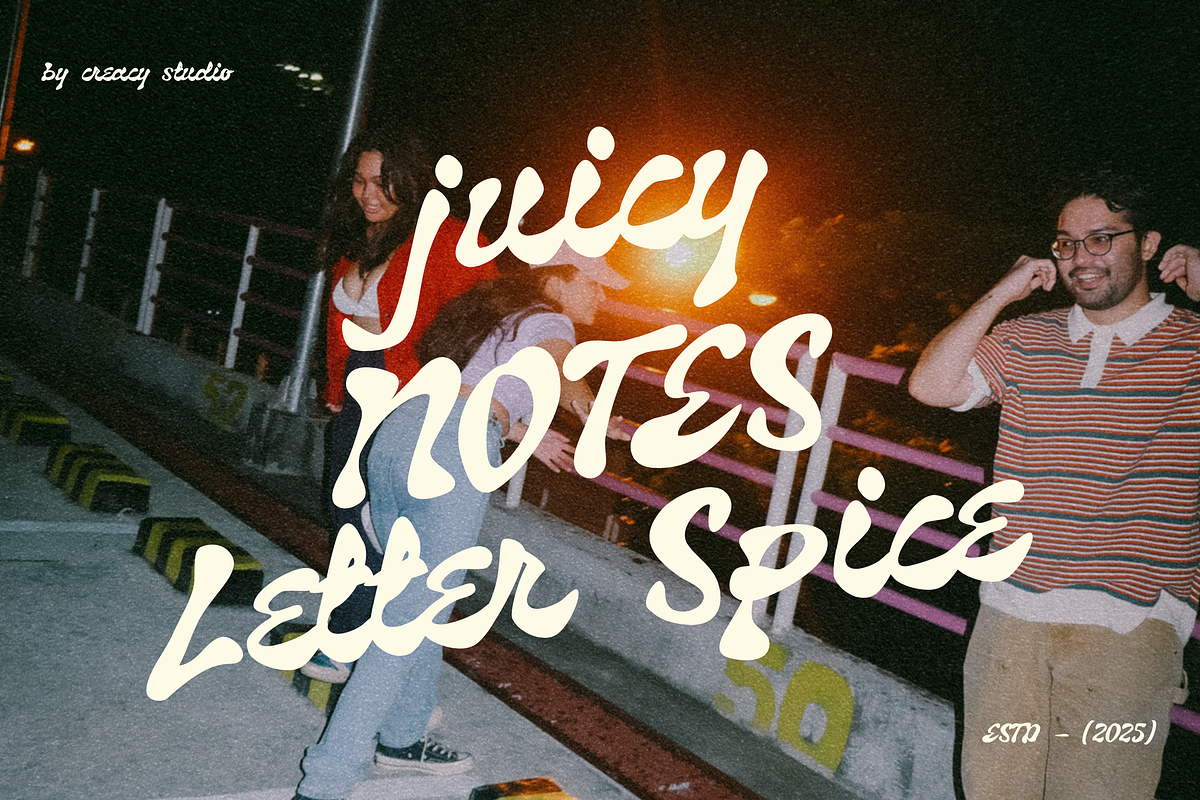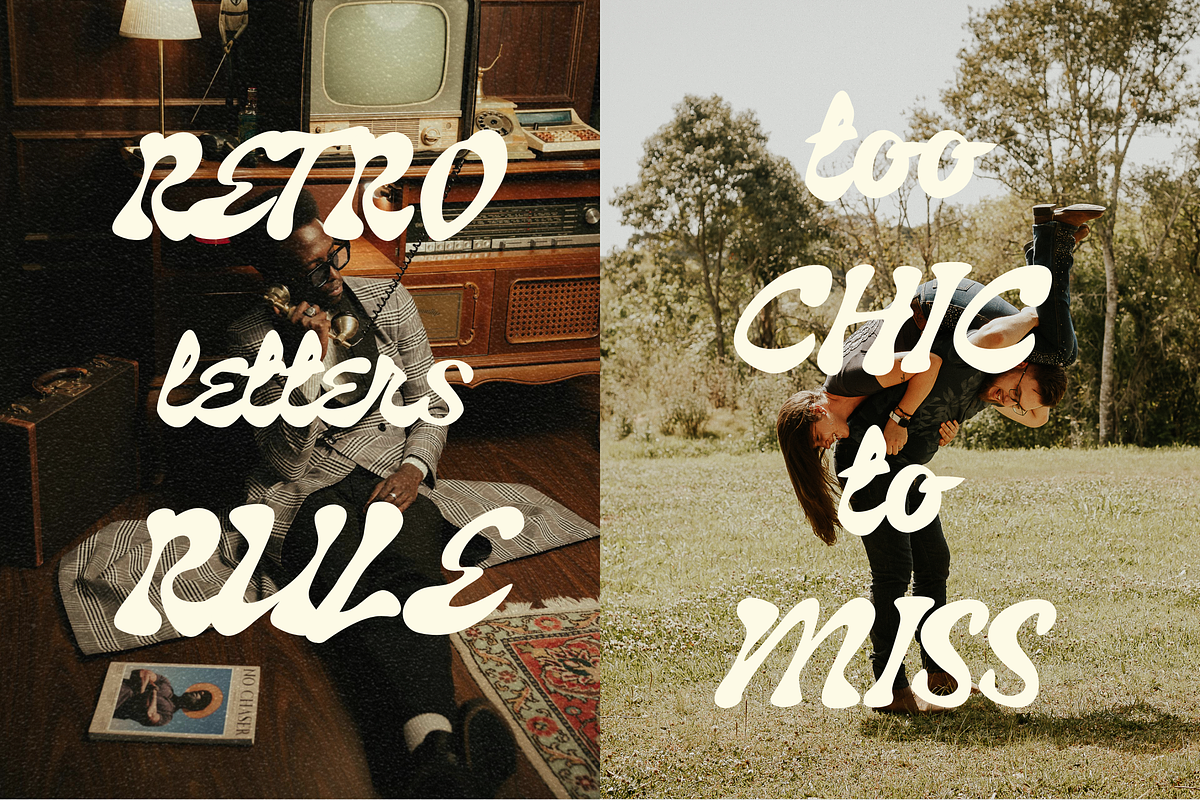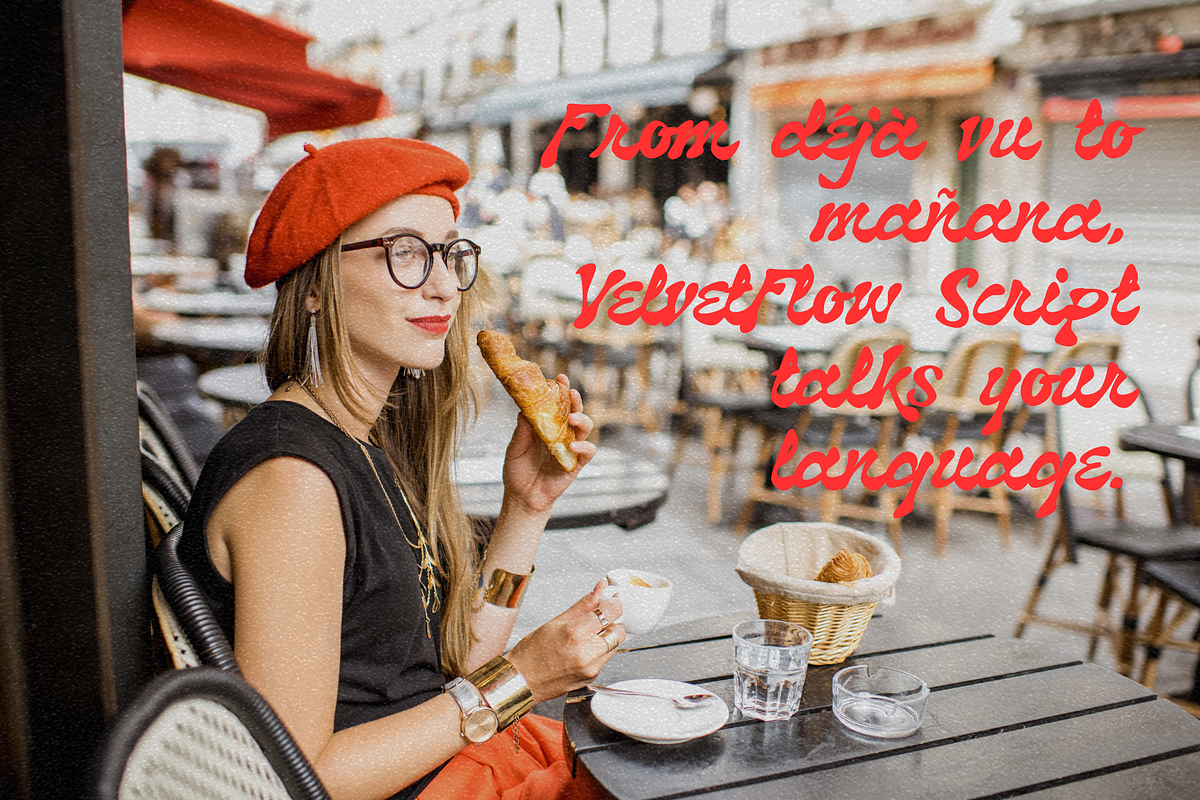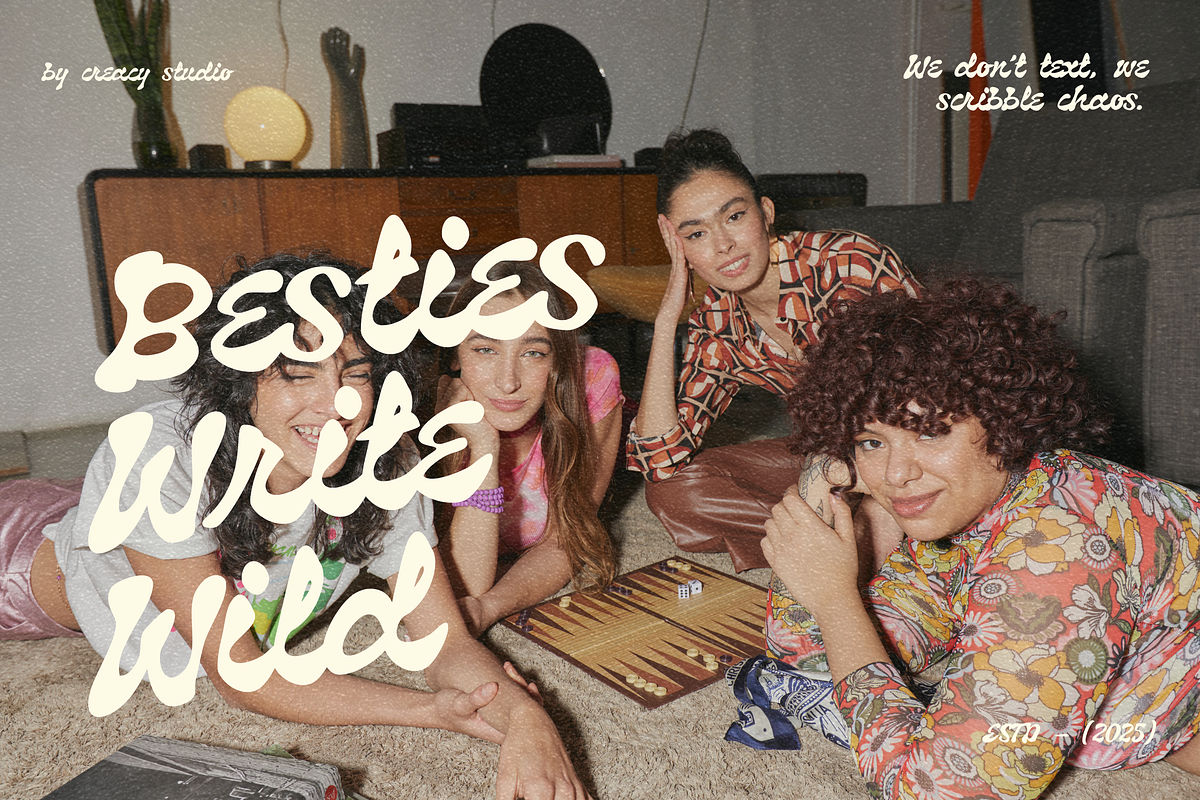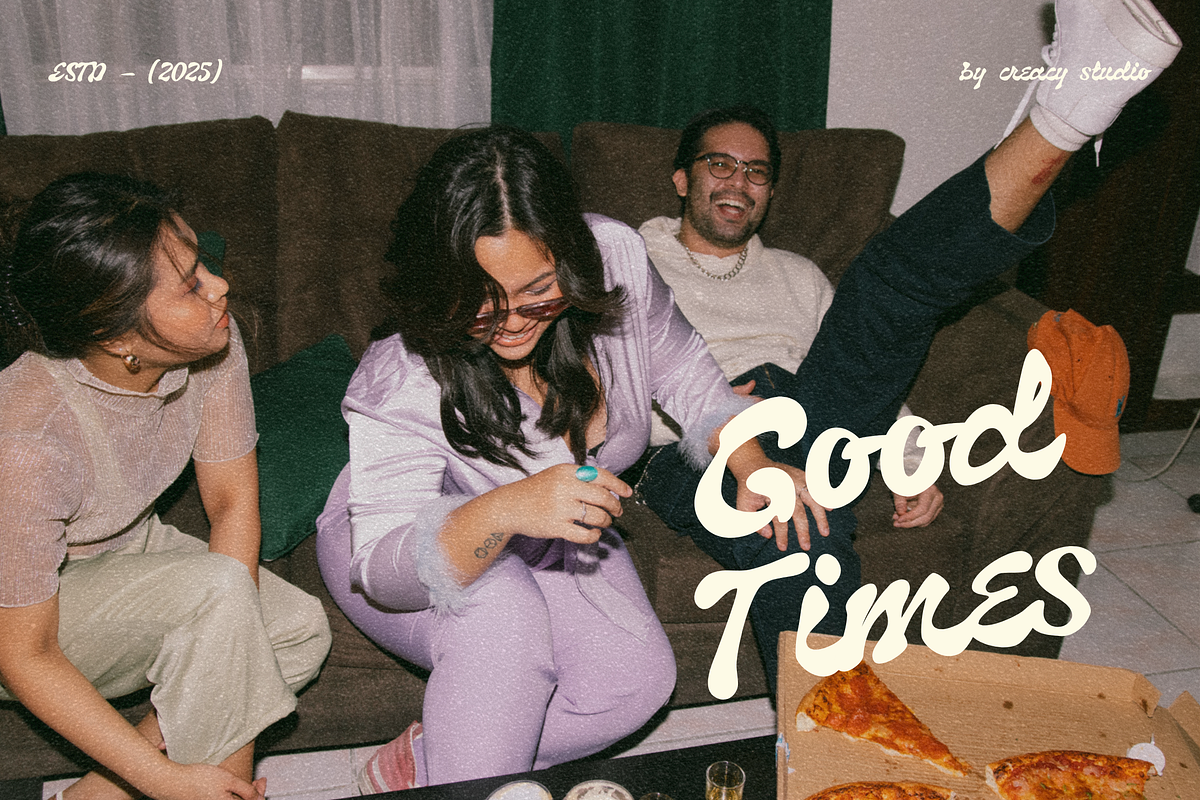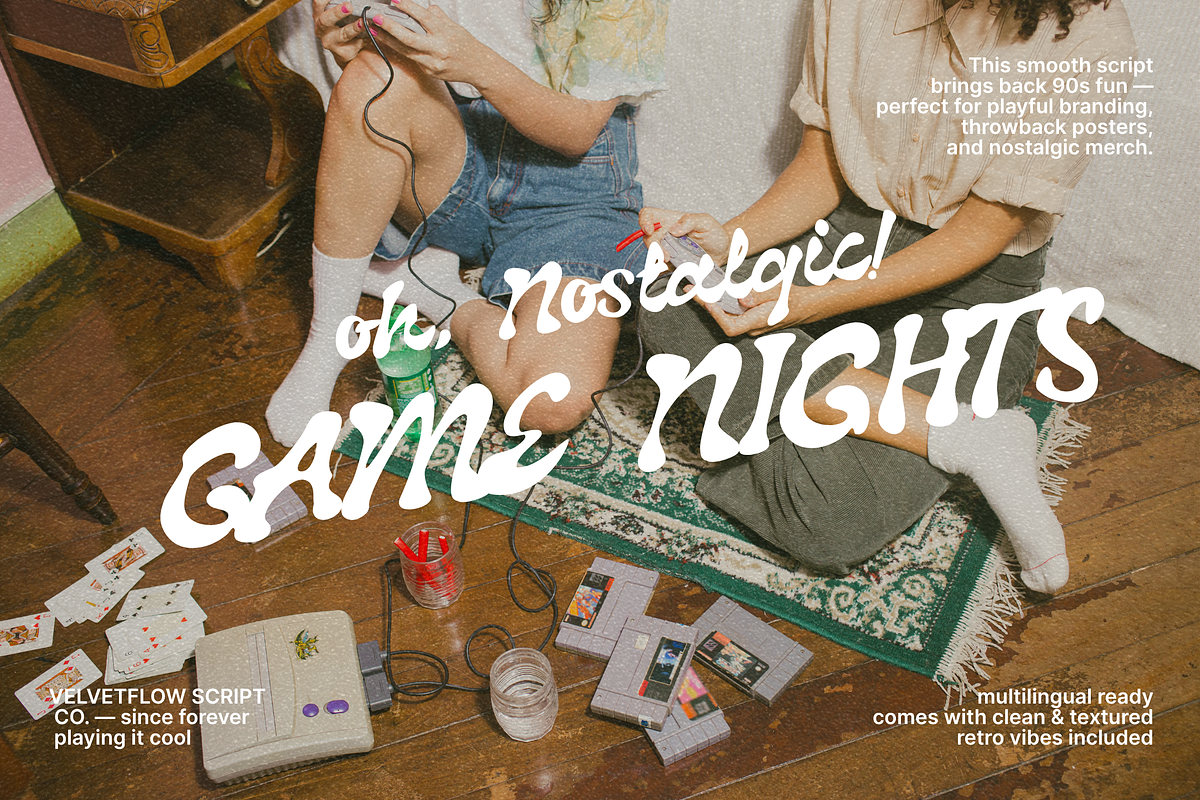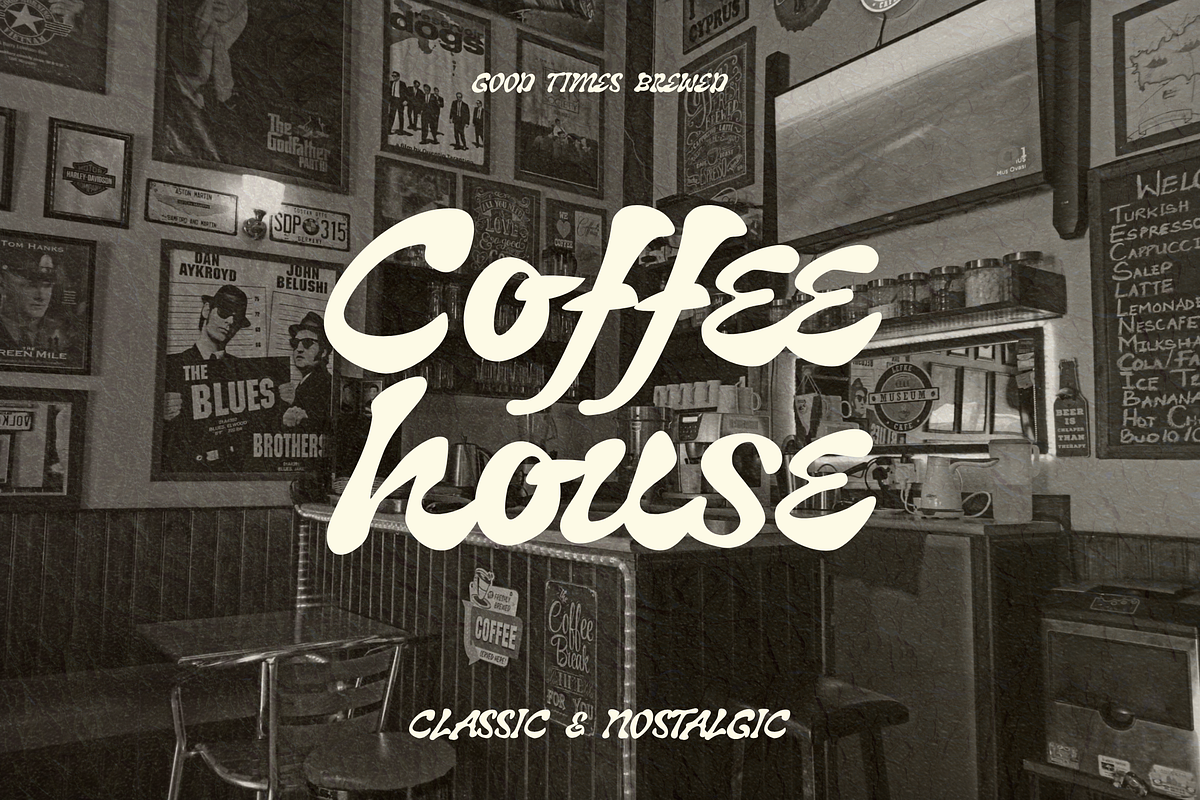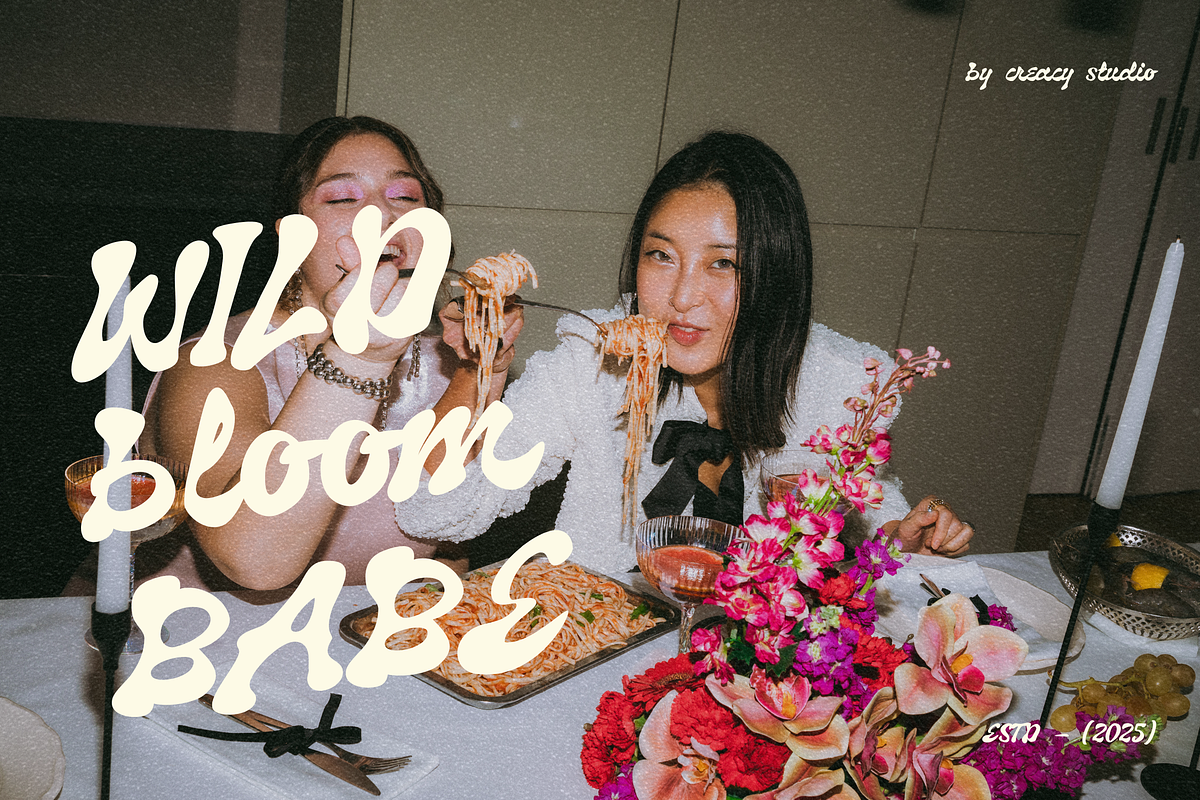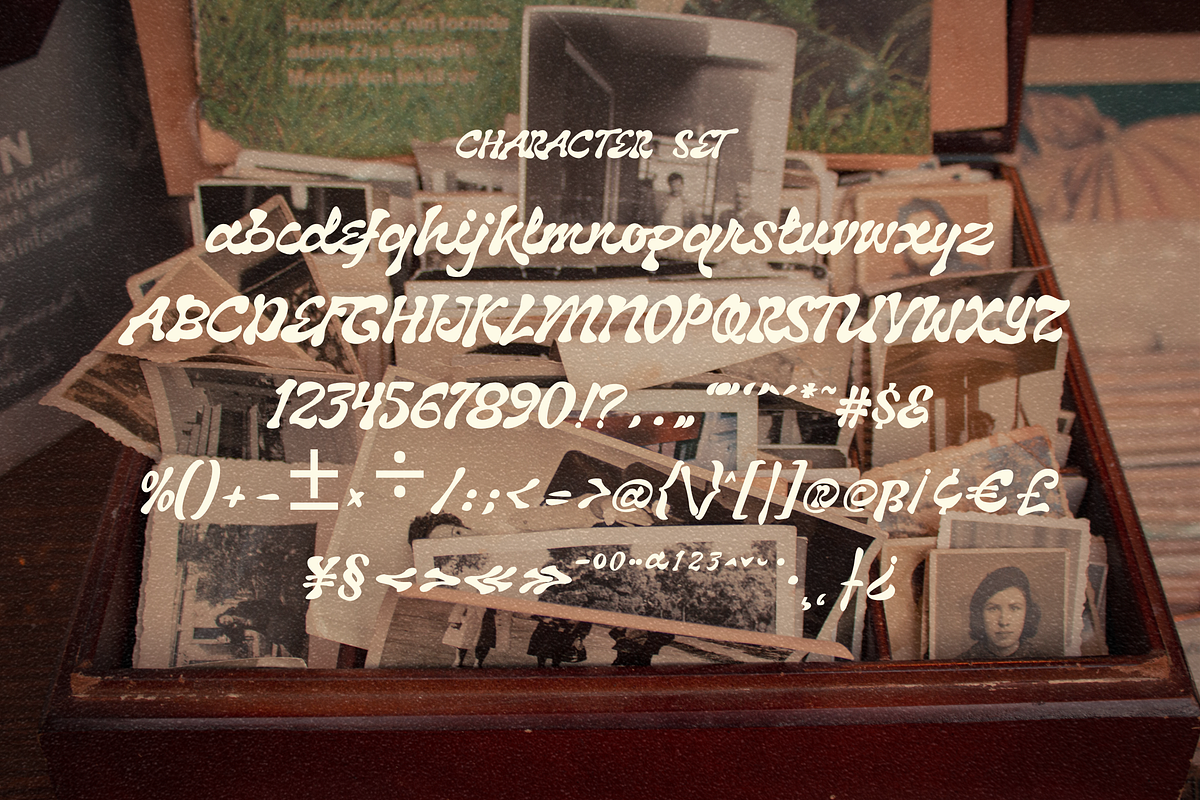
Velvetflow – Smooth Nostalgic Font
VelvetFlow Script – Smooth Nostalgic Retro Script Font
Bring back the warm, playful charm of the past with VelvetFlow Script – a smooth retro script font inspired by the vibrant lettering styles of the ’90s. Its bold yet fluid strokes and soft curves create a perfect balance between nostalgia and modern appeal, making it ideal for brands and creatives who want their designs to feel unique, stylish, and full of personality.
Whether you’re designing throwback posters, retro-inspired merch, coffee shop branding, album covers, or playful packaging, VelvetFlow Script adds that unmistakable vintage touch.
- Full uppercase & lowercase letters
- Numbers, punctuation, and symbols
📌 Perfect for Vintage logos, cafe menus, music posters, event invitations, apparel design, product packaging, and any project craving that timeless retro vibe.
Let your words flow with the smooth, nostalgic rhythm of VelvetFlow Script – where every letter tells a story.